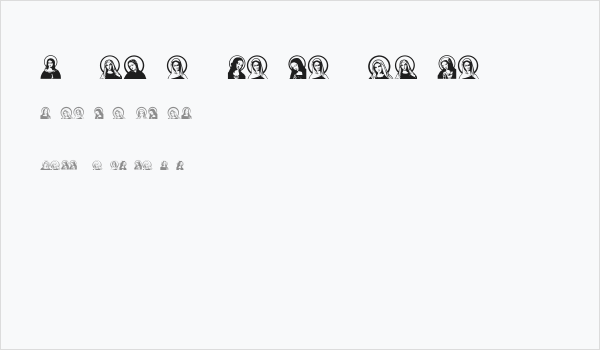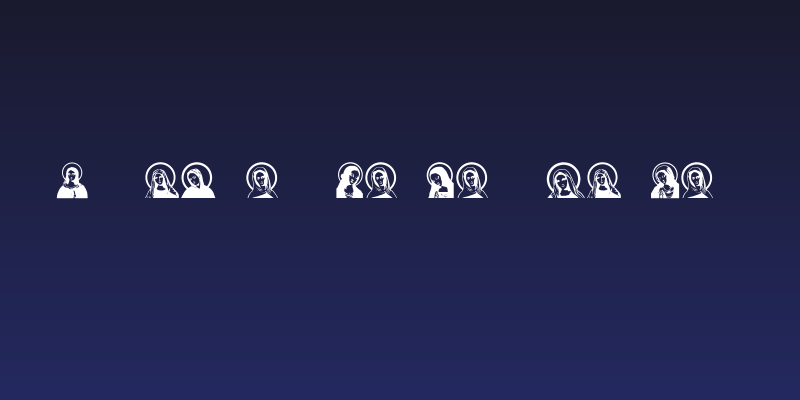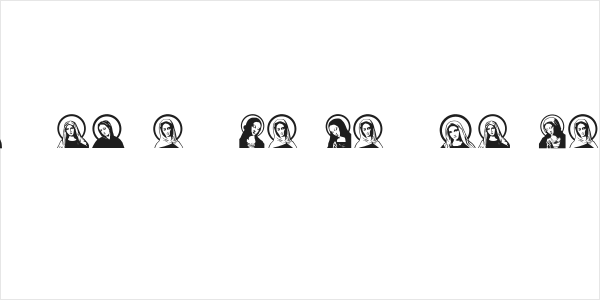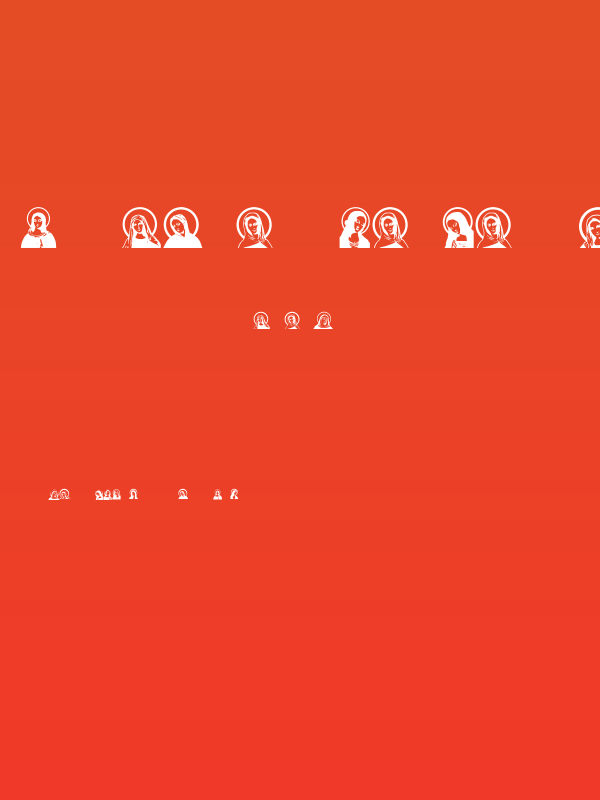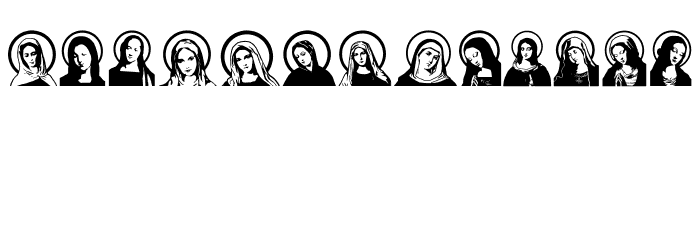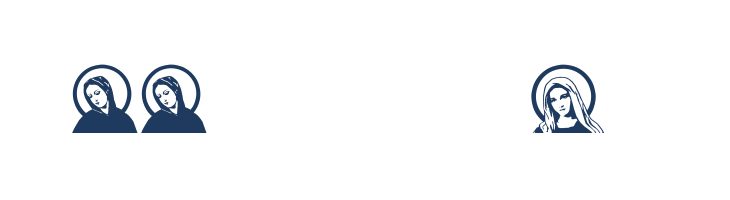
Jungfrau Maria Regular Font
A decorative font composed of illustrated religious female figures, each character represented by a unique black and white icon with halo motifs and expressive facial features, evoking sacred and classical art styles.
| Overall Style | Decorative, Sacred, Classical |
| Use Case | Borders, Decorative accents, Themed graphics |
| Proposed Projects | Religious event materials, church bulletins, spiritual art projects, decorative borders, themed invitations. |